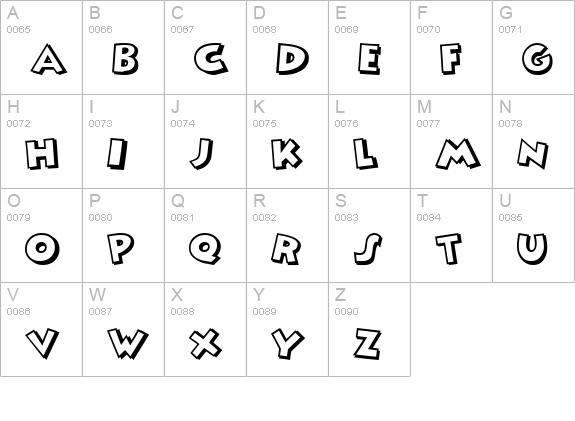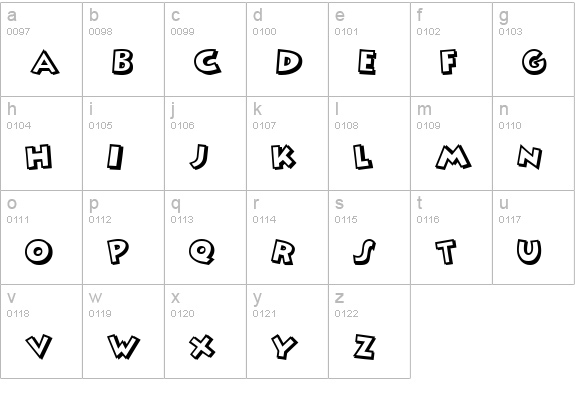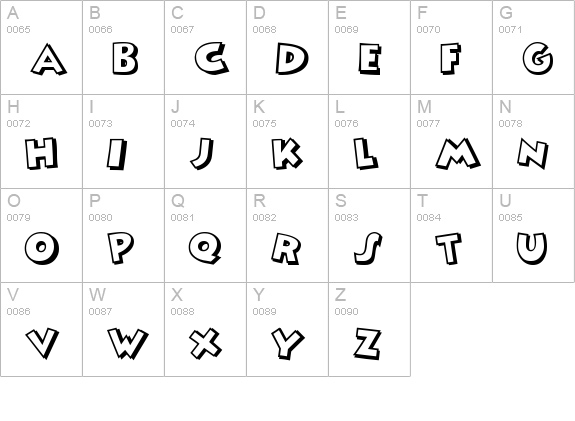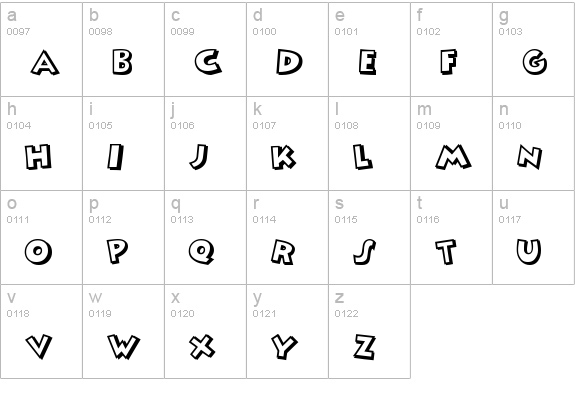
Disney Mickey Font Details
The Disney Mickey font is a delightful and whimsical typeface inspired by the beloved characters of the Disney universe. This fun and playful font captures the essence of Mickey Mouse and his friends, bringing a touch of magic to any design project. With its charming curves and iconic style, the Disney Mickey font is perfect for adding a touch of nostalgia and joy to your creations. Best of all, the Disney Mickey font is available for free download at FontsMarket.com. This means you can easily incorporate this charming typeface into your designs without any cost. Whether you're creating invitations, posters, or social media graphics, the Disney Mickey font is sure to bring a smile to your audience's faces. Download the Disney Mickey font today and let the magic of Disney inspire your next project!